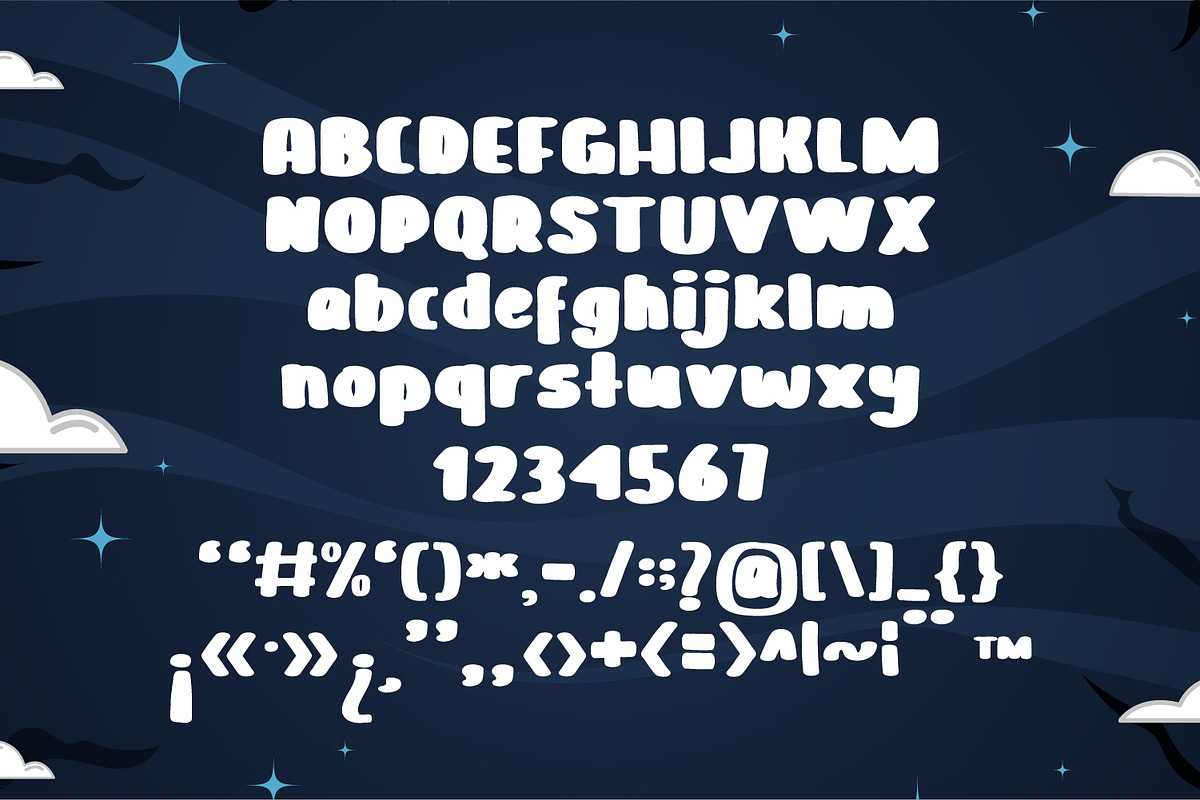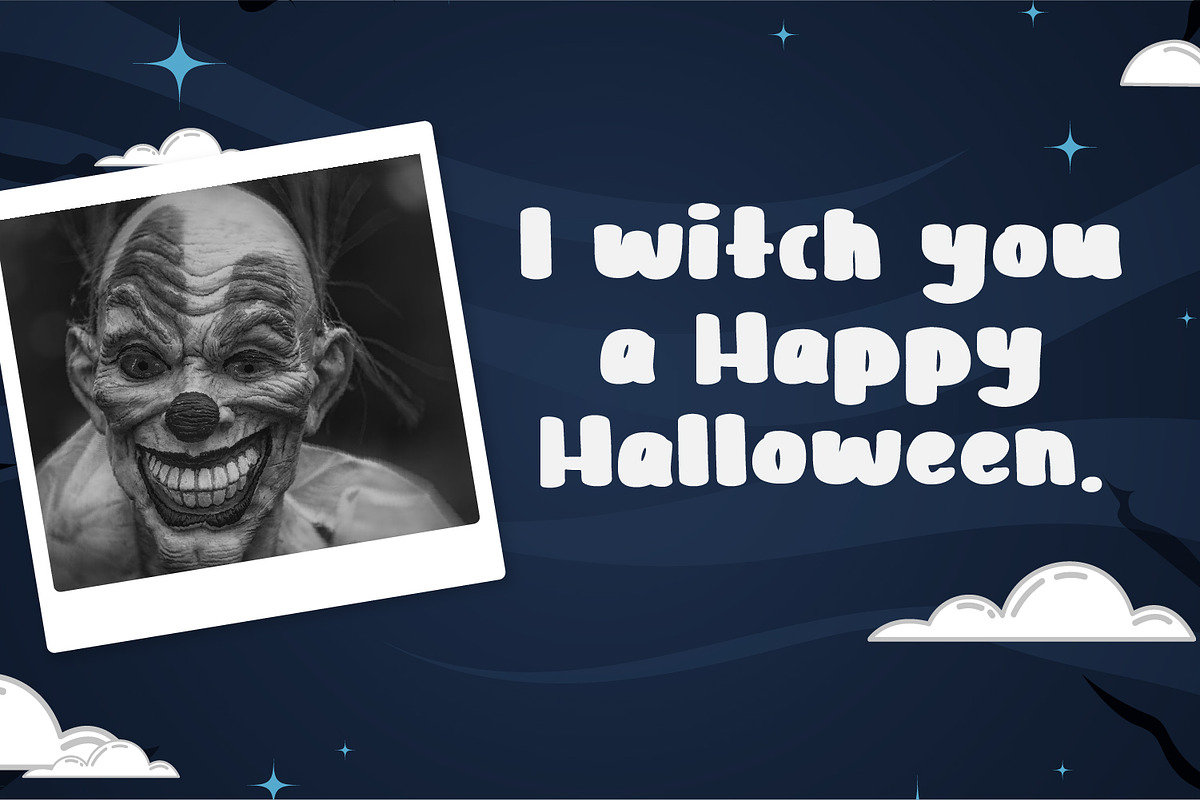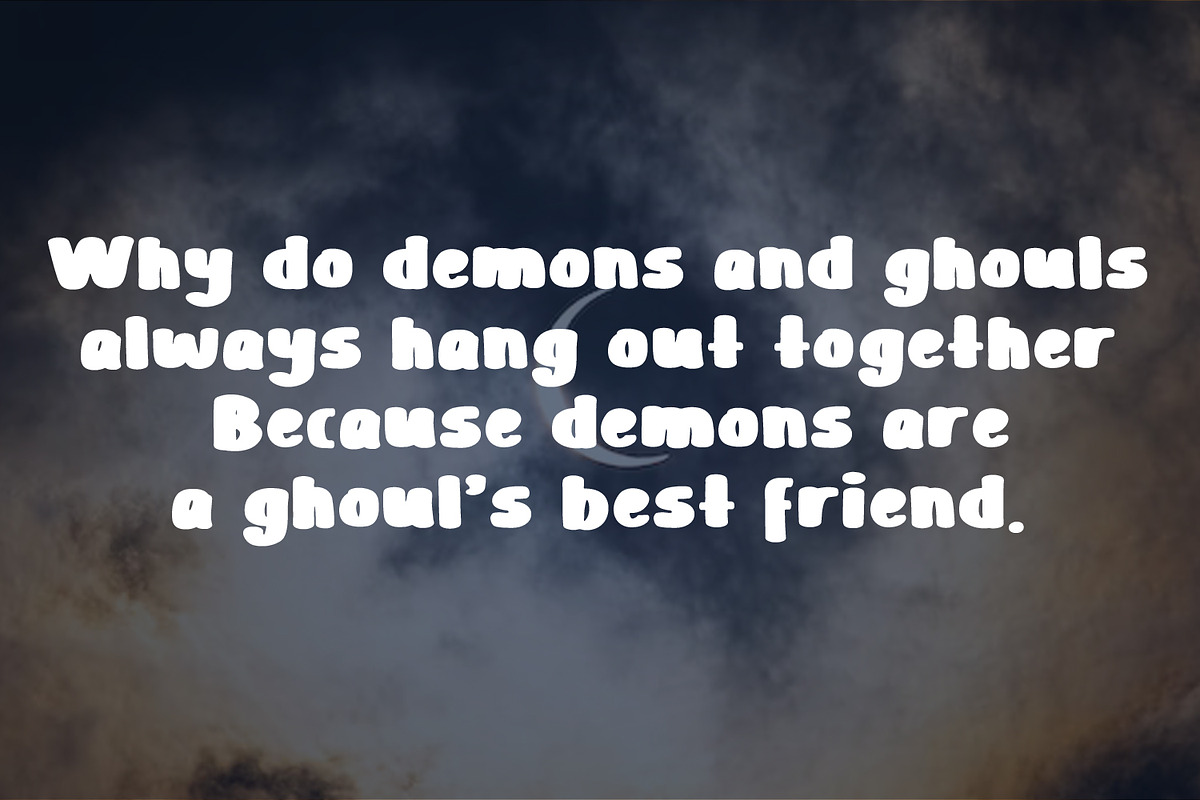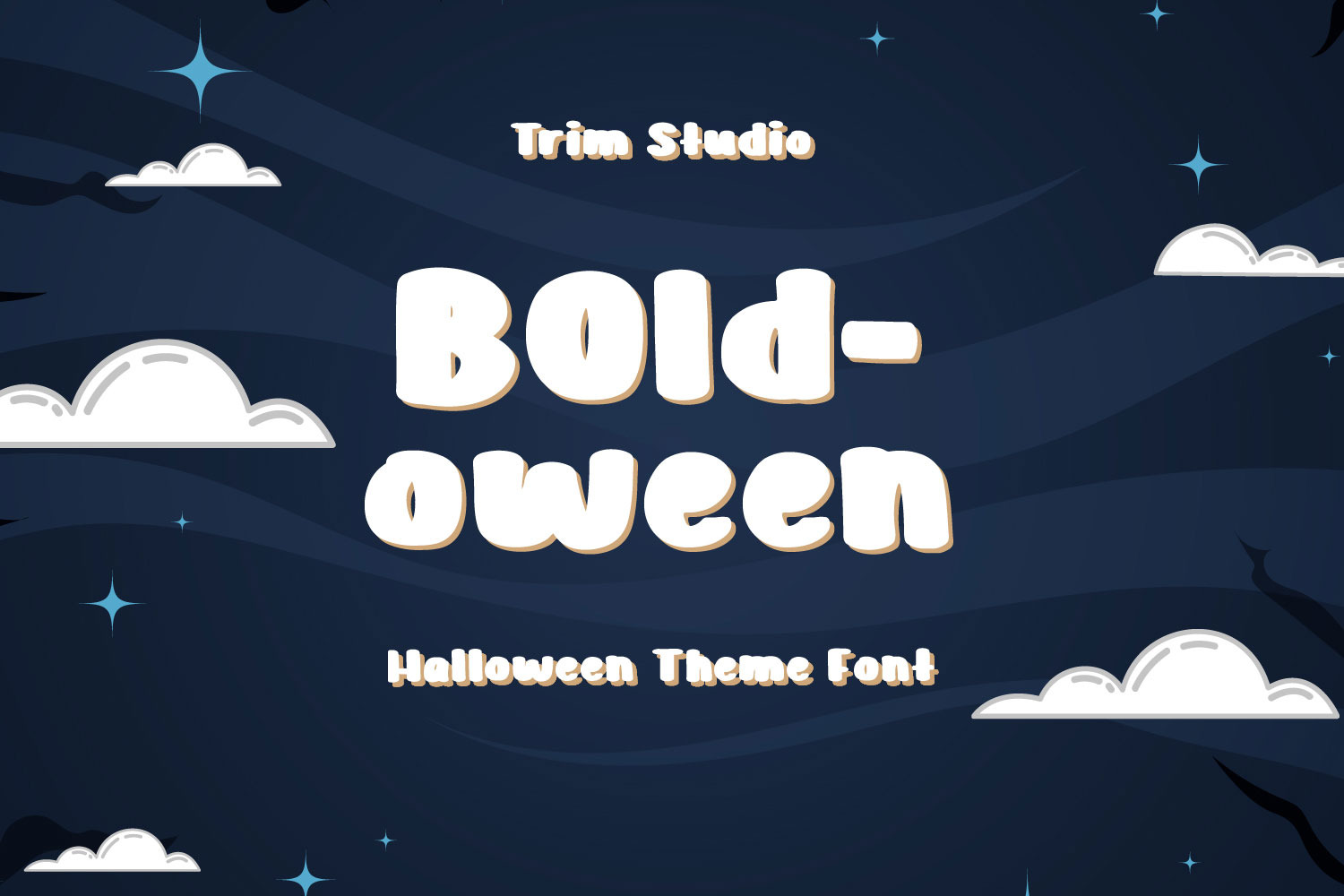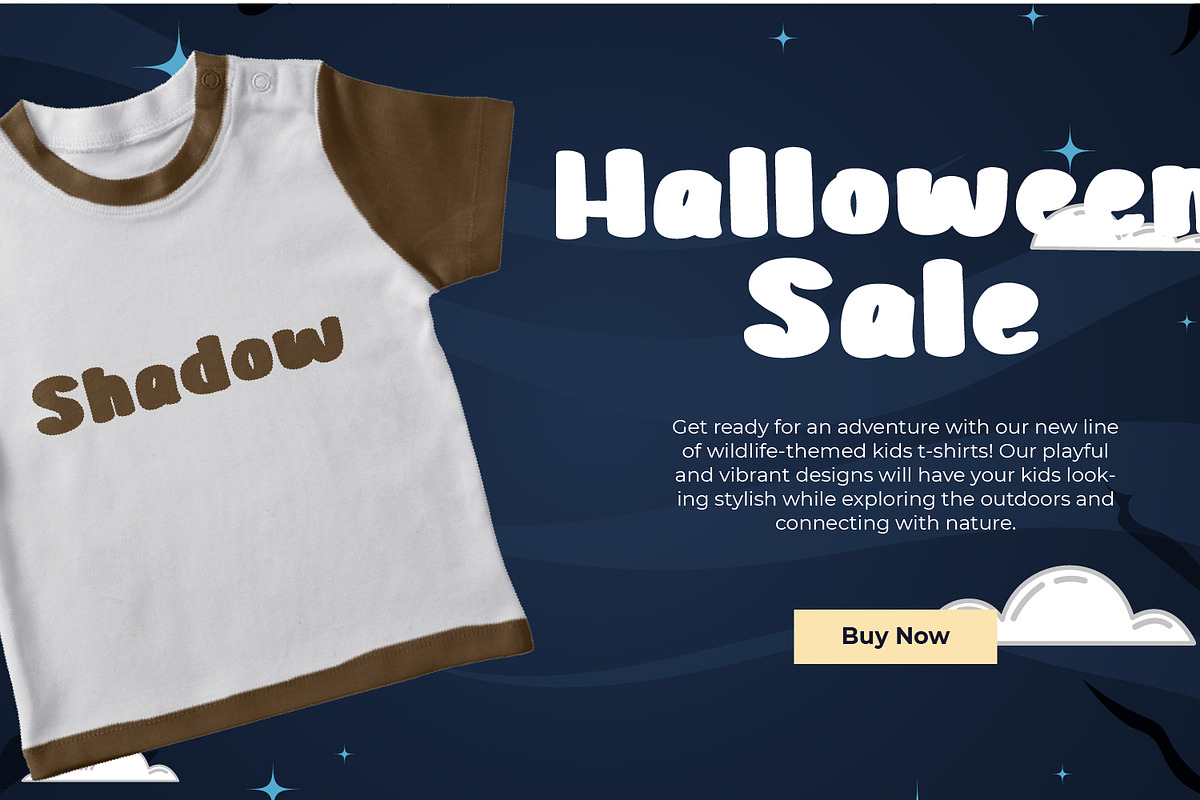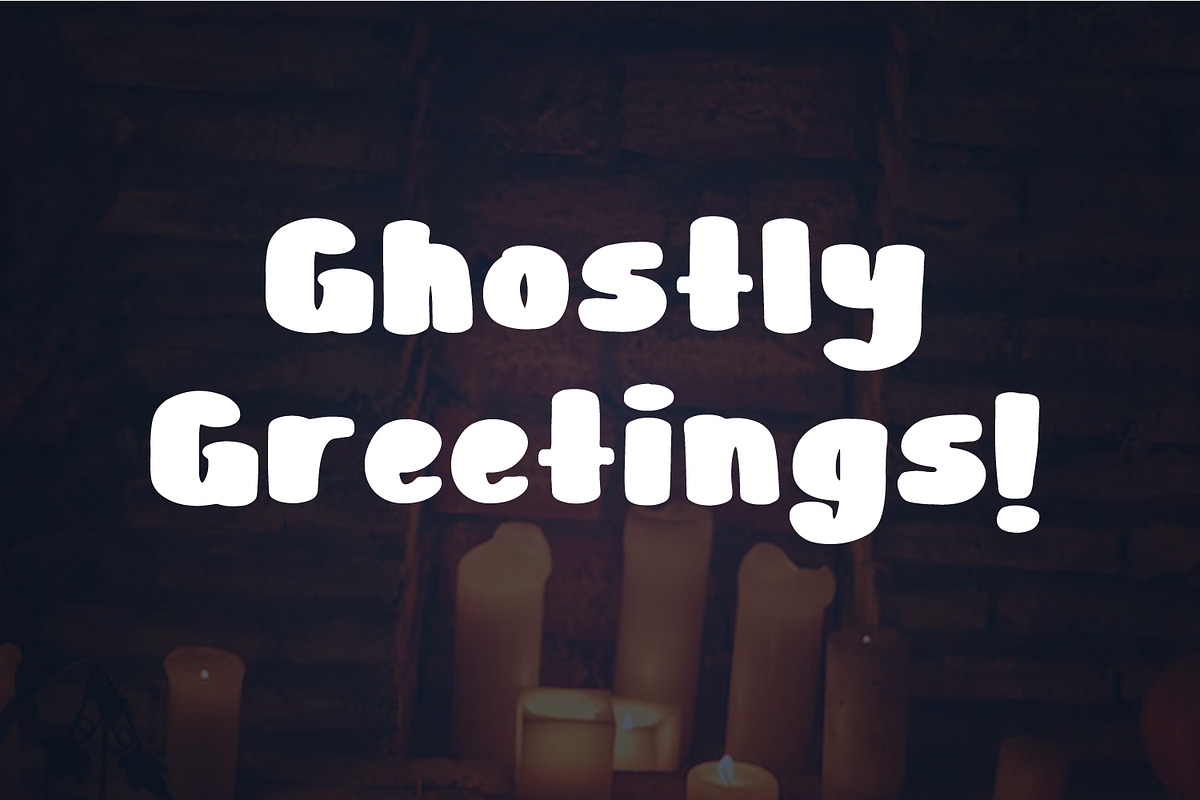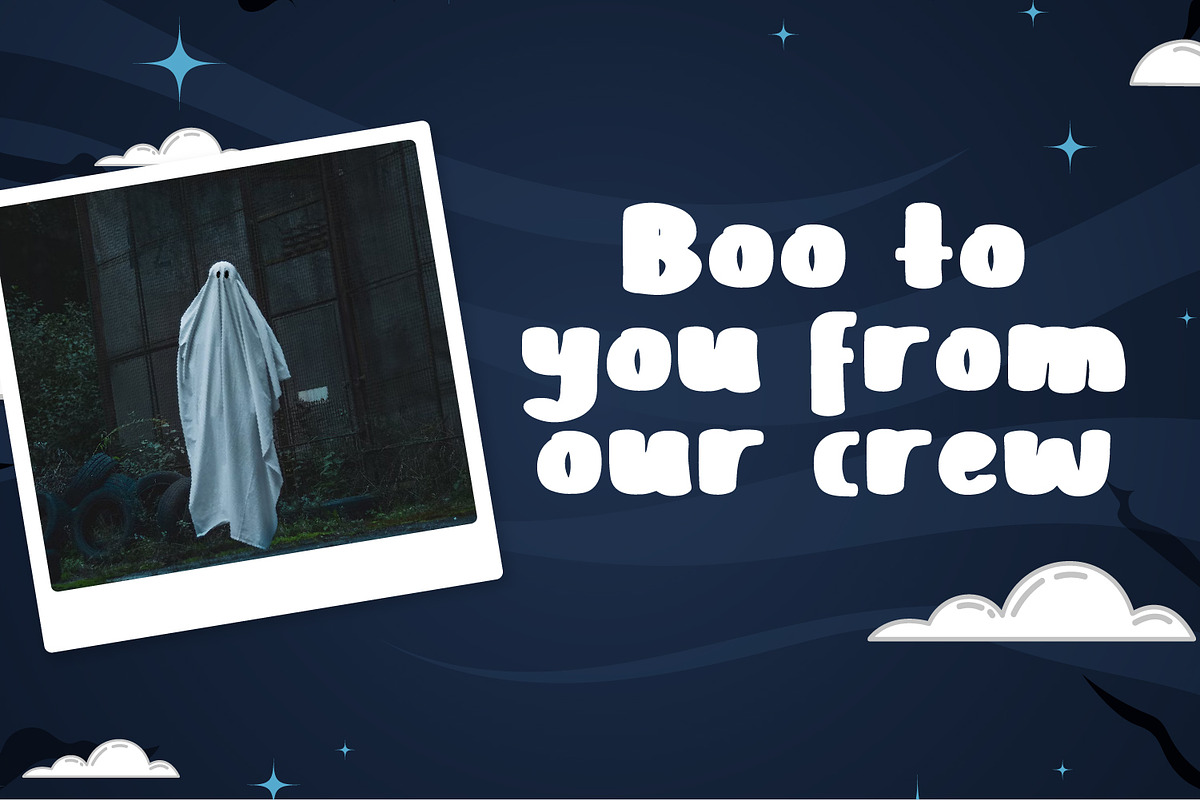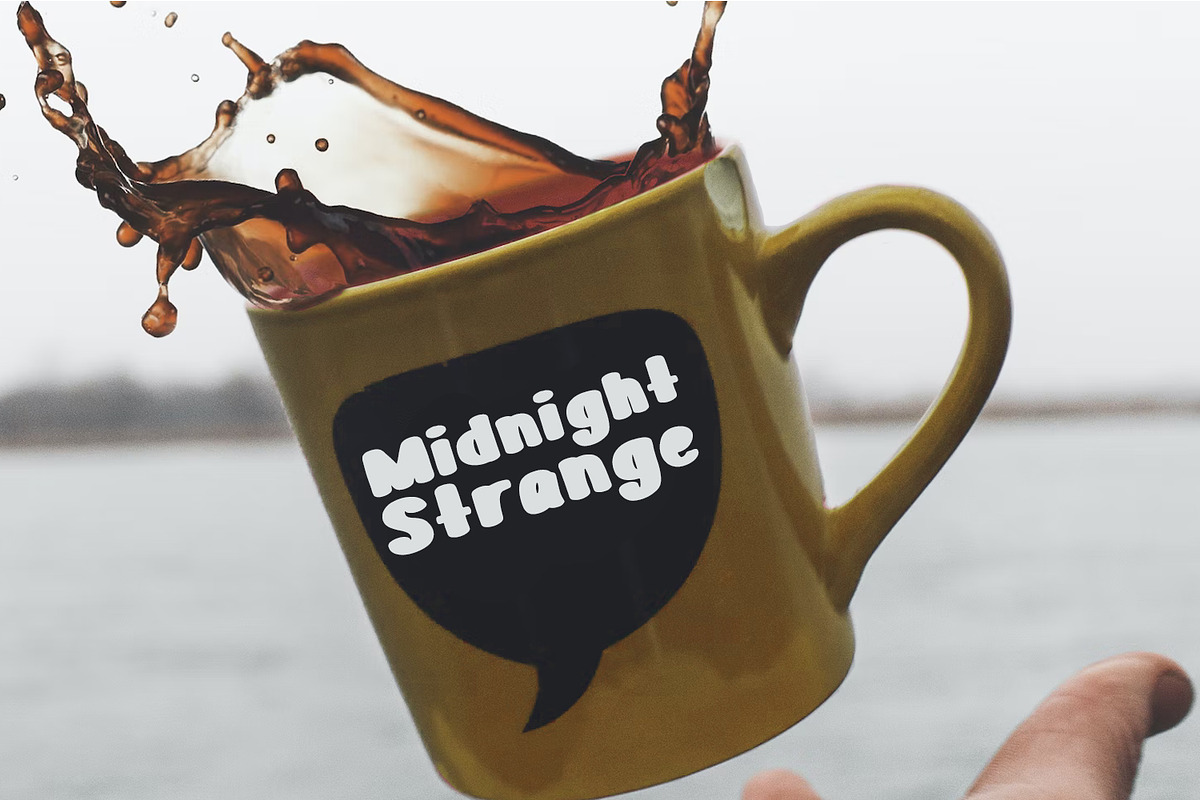
Bold-oween Halloween Font
Bold-oween is a striking and playful font that combines the intensity of bold letterforms with a fun and spooky Halloween twist. Its powerful and attention-grabbing characters capture the essence of Halloween in a lively and thrilling way.